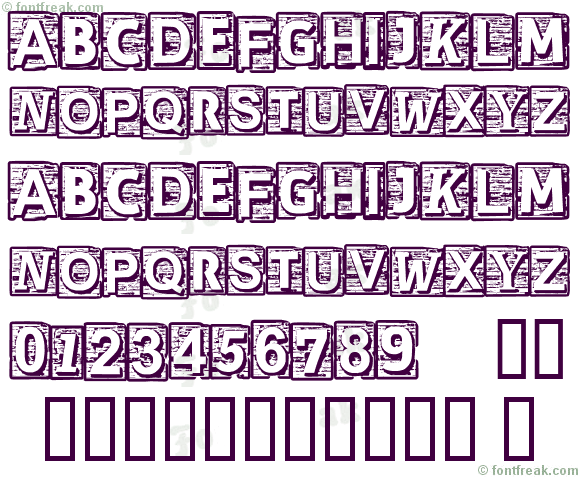
CF Cherokee Regular
CF Cherokee Regular, designed by Cloutierfontes, is a distinctive display font that captures attention with its bold, stylized appearance. This font features a unique combination of thick and thin strokes, providing a striking contrast that enhances its visual impact. The letters are characterized by a slightly irregular structure, which adds an artistic flair, making it a perfect choice for designs that require a touch of creativity. The spacing between the letters is well-considered, ensuring readability while maintaining a playful aesthetic.
This font is ideal for a variety of applications. Its eye-catching nature makes it particularly suitable for movie posters, where it can effectively convey excitement and intrigue. Additionally, CF Cherokee Regular can be used in promotional materials for events, such as music festivals or art exhibitions, where a bold statement is essential. Its unique style also lends itself well to restaurant menus, especially for establishments looking to create a fun and inviting atmosphere. Graphic designers will find this font useful for creating logos that stand out in the competitive market, while content creators can use it in social media graphics to engage their audience.
What sets CF Cherokee Regular apart is its blend of boldness and artistic character. This font not only serves functional purposes but also adds a layer of personality to every project. Whether you're working on a vibrant poster or an engaging online graphic, CF Cherokee Regular font free download is an excellent choice for adding a unique touch to your designs.